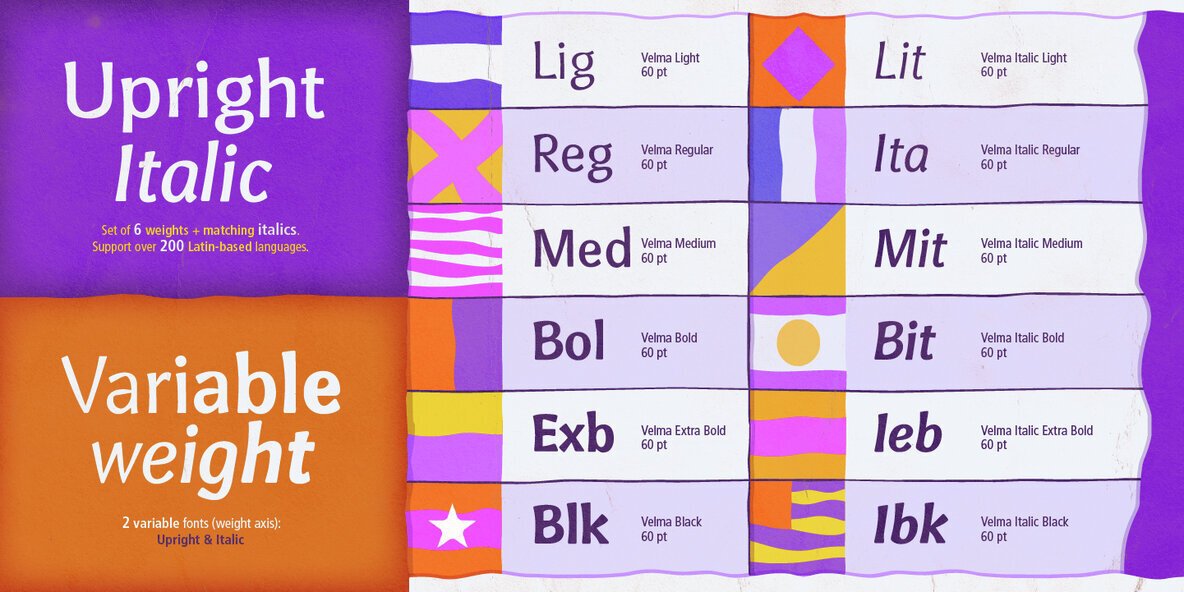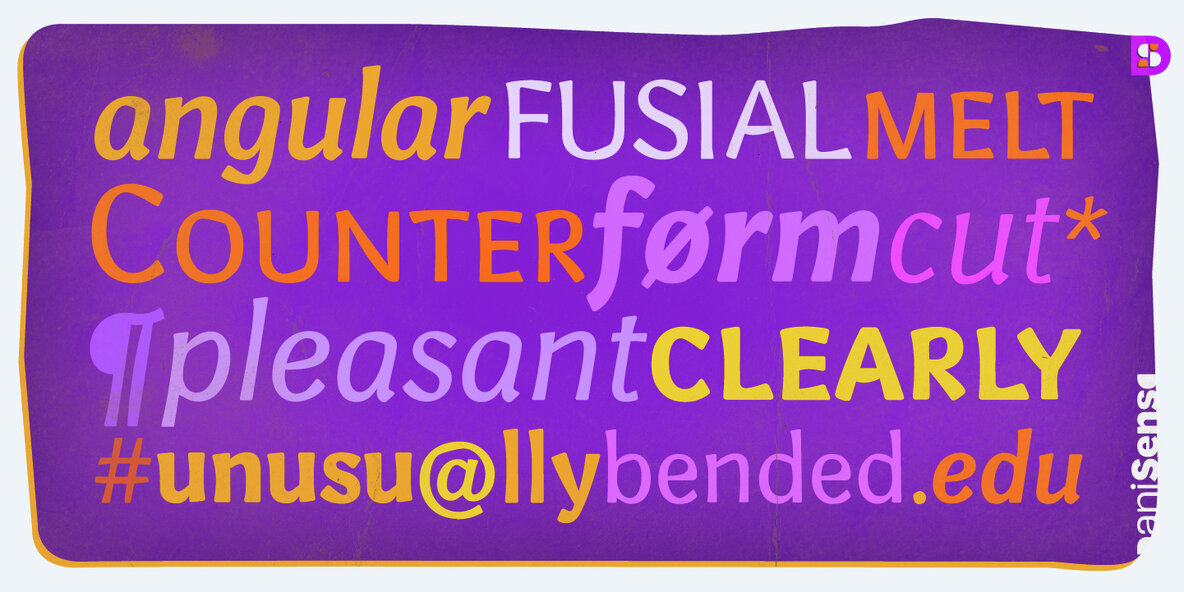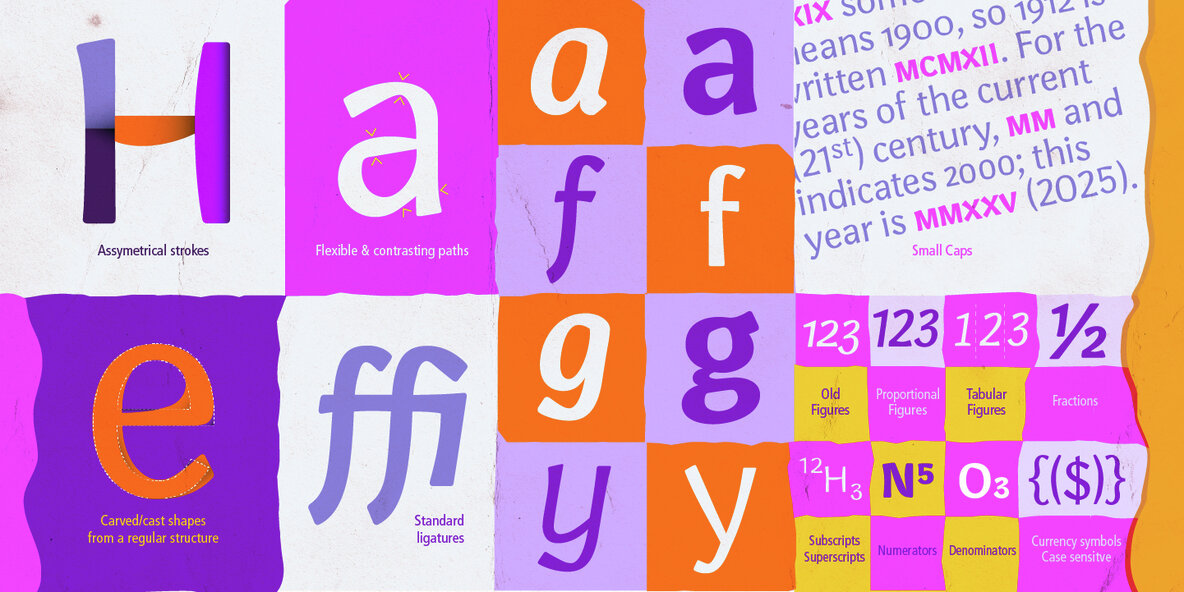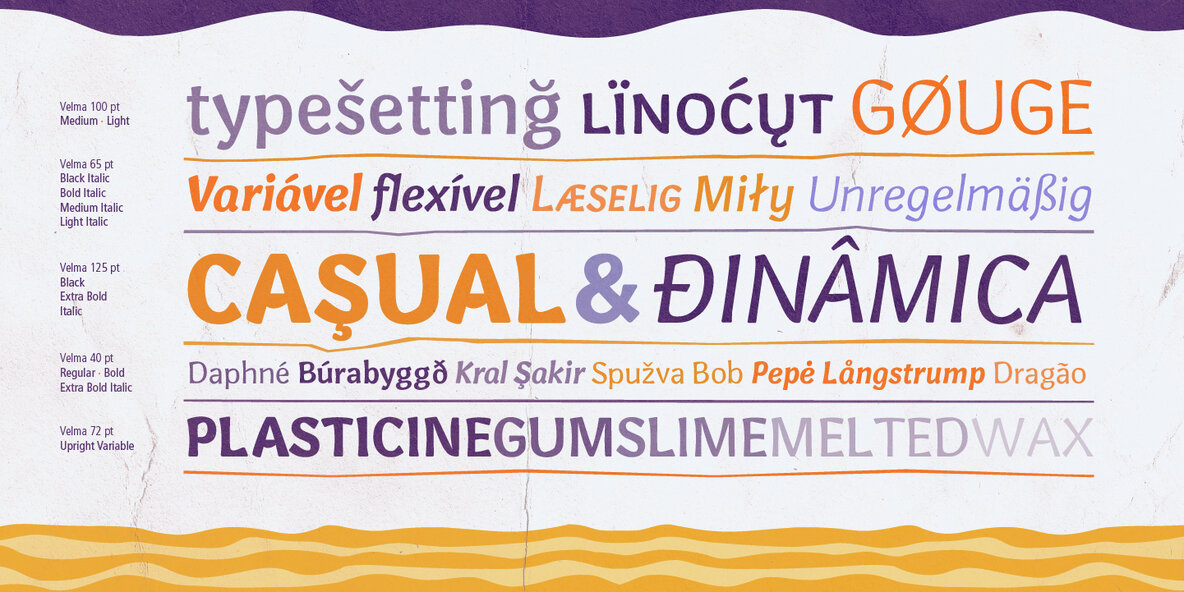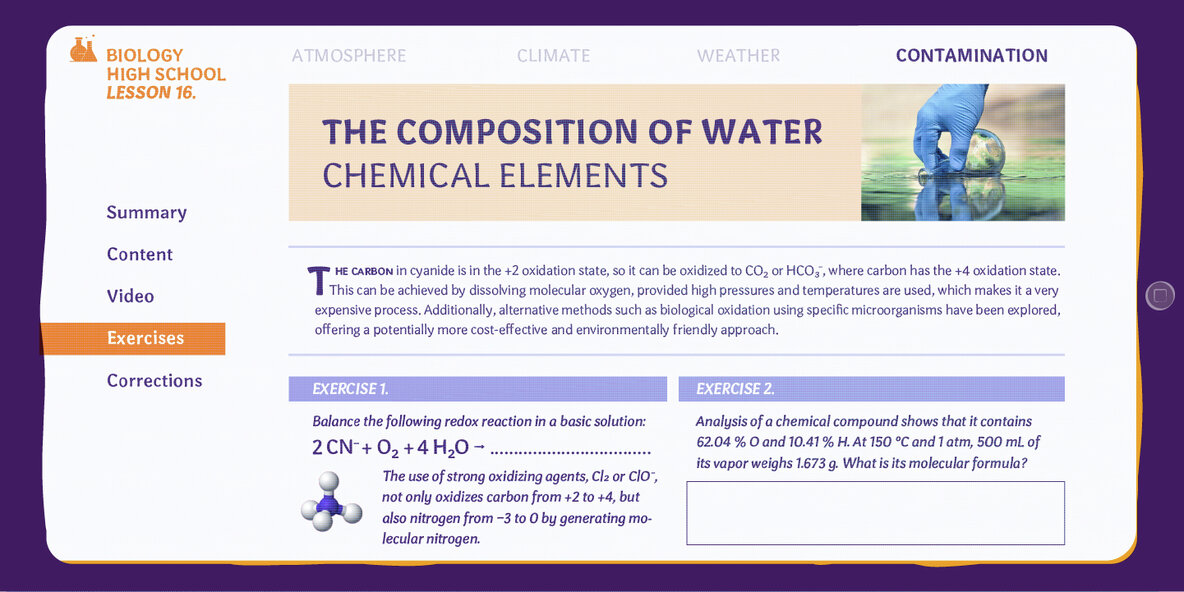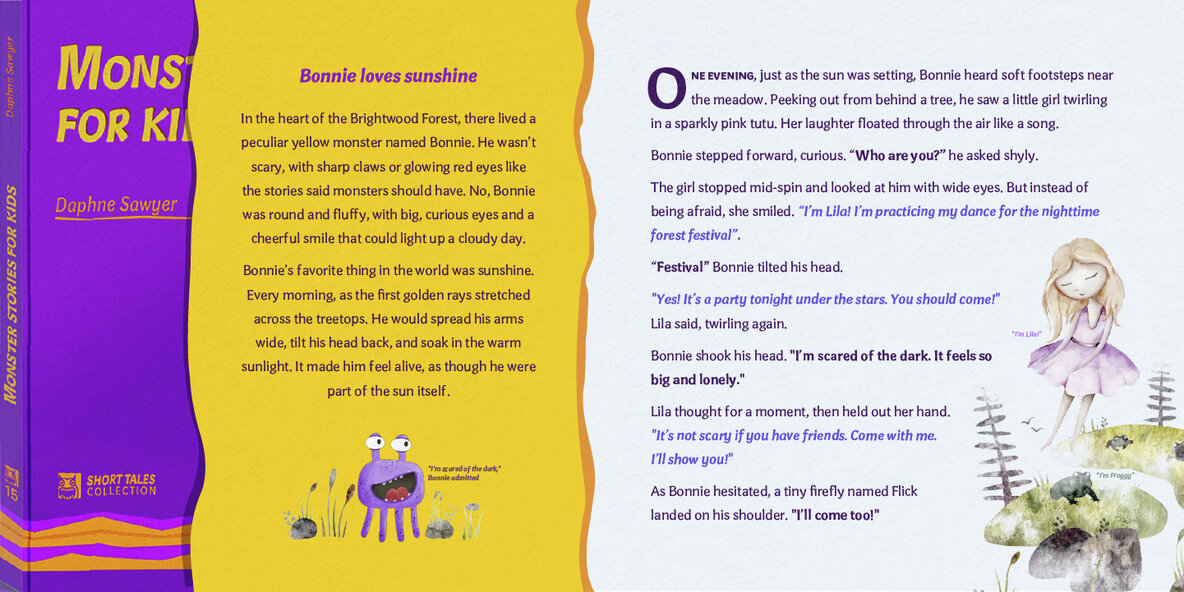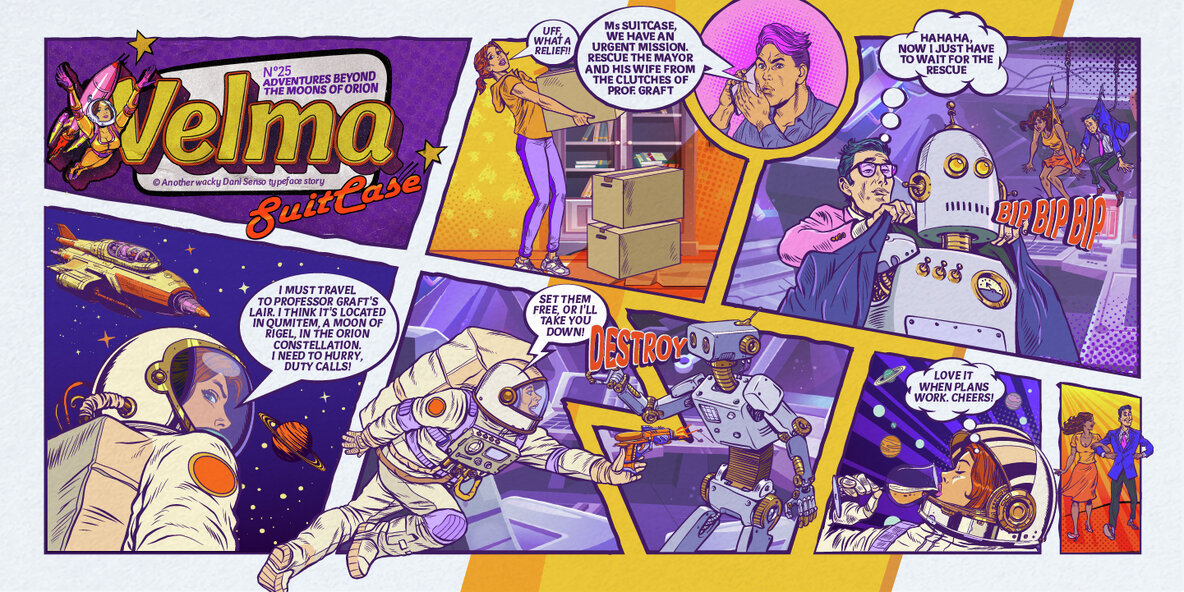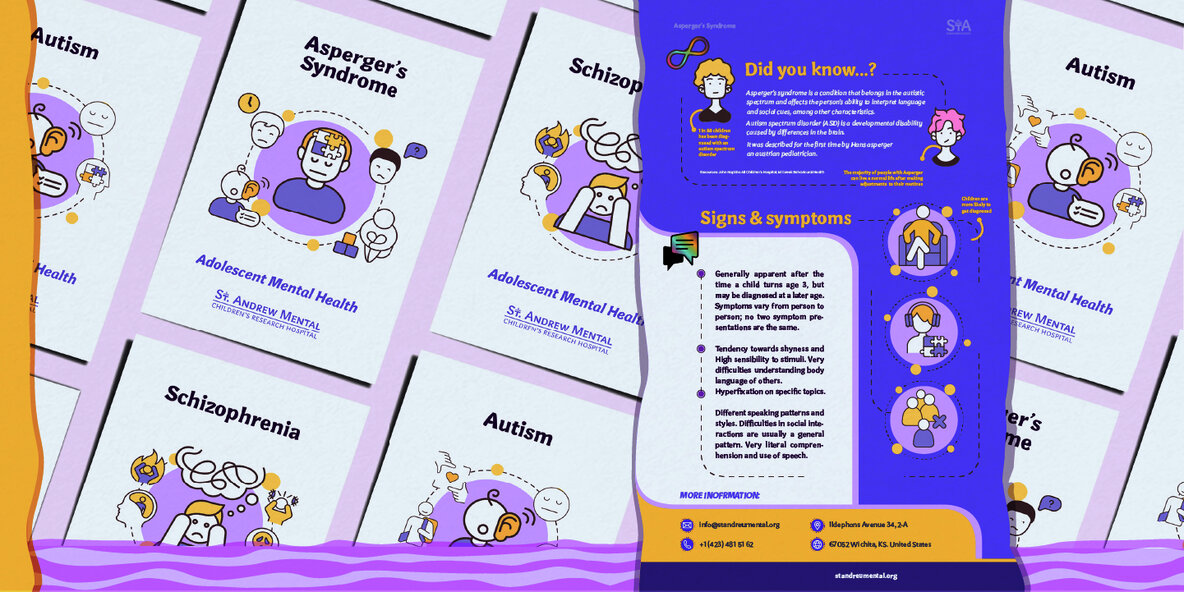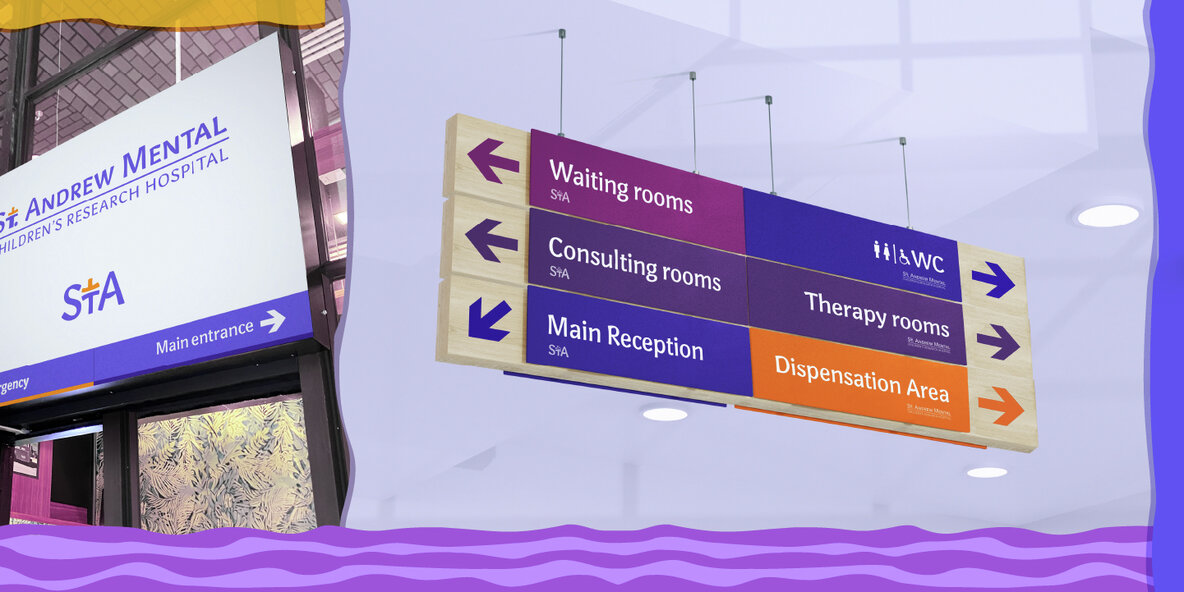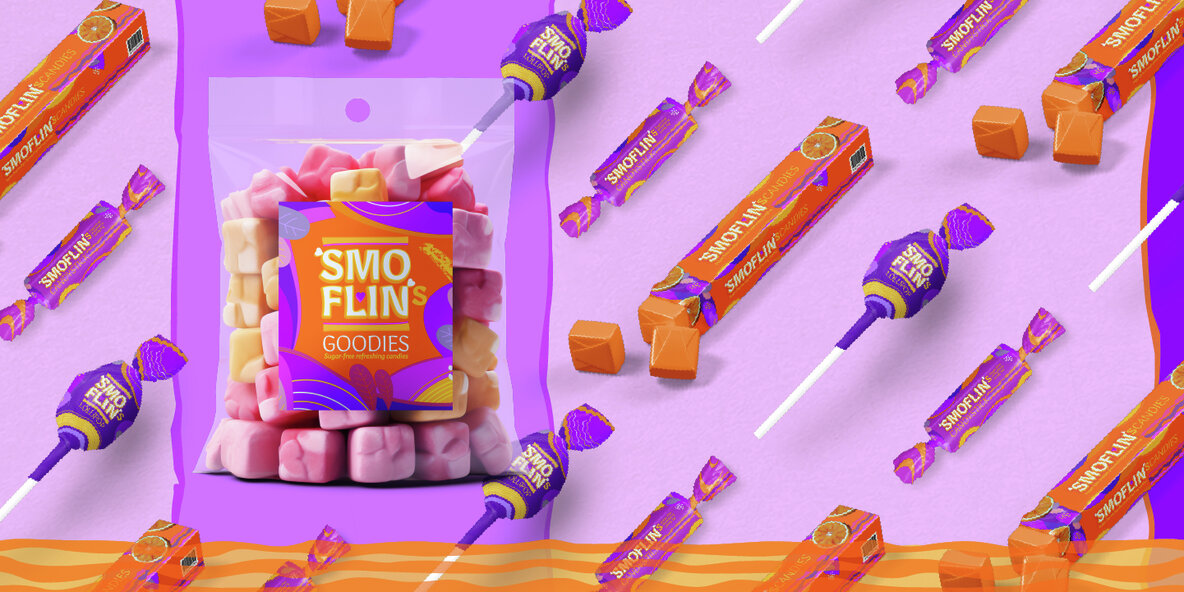
Velma Font
Velma is a unique humanist typeface characterized by its flexible, contrasted strokes, reminiscent of being carved or molded from a solid base. Its design strikes a balance between sobriety and friendliness, ensuring excellent legibility for text while offering an engaging presence in any contemporary setting. As the typeface's weight increases, its expressive qualities are enhanced by more pronounced, irregular counterforms, making it an ideal choice for display purposes. Velma's irregular rhythm creates a balanced, modulated texture, adding an informal yet clear element to communication.
The typeface comes in six upright styles and six italics, complemented by two variable fonts. It provides a comprehensive set of typographic features, including old-style, lining, and tabular figures, as well as superscripts, subscripts, basic ligatures, and small caps. With its 650 glyphs, Velma supports over 200 Latin-based languages, making it a versatile choice for a wide range of design projects.